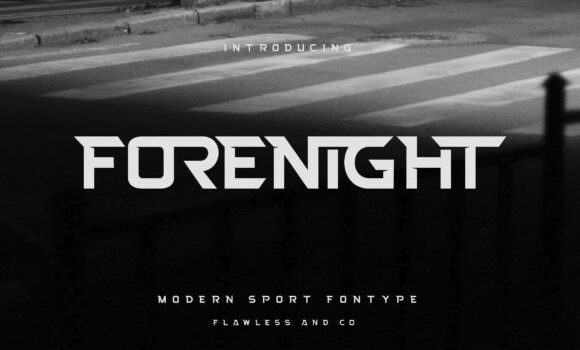
forenight
Forenight Font – Free Download Introduction to Forenight Font Forenight is a dynamic and modern sport font designed to capture the spirit of athleticism and energy. 📸 Preview Gallery 6 images 📌 Product Name Forenight Font 👤 Author Flawless And